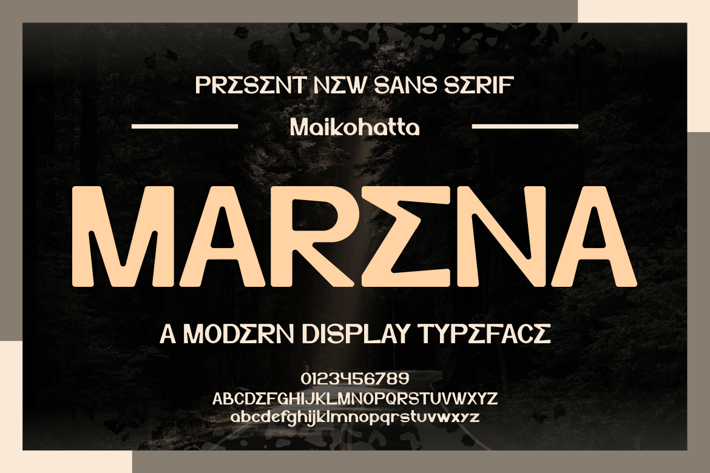
MARENA Font
Introducing our new product MARENA Font - Modern Font
MARENA Font - Modern Font is a bold and authentic display font. The font is suitable for any branding project like logo, t-shirt printing, esport, and many more. outstanding in a wide range of contexts.